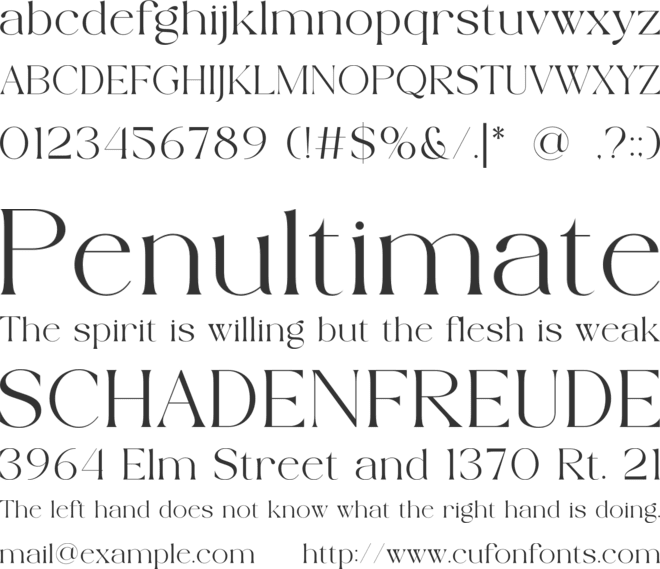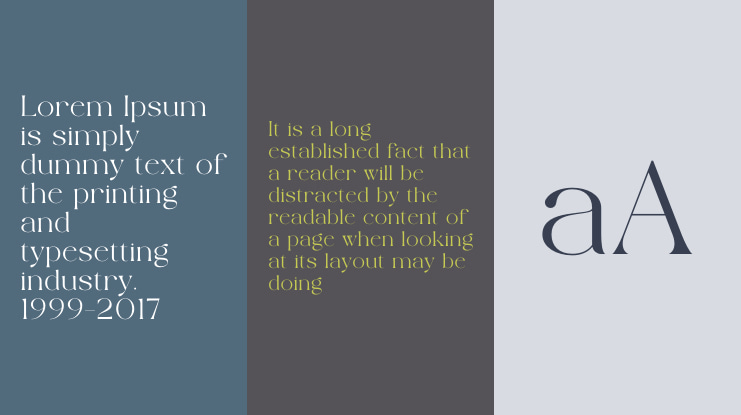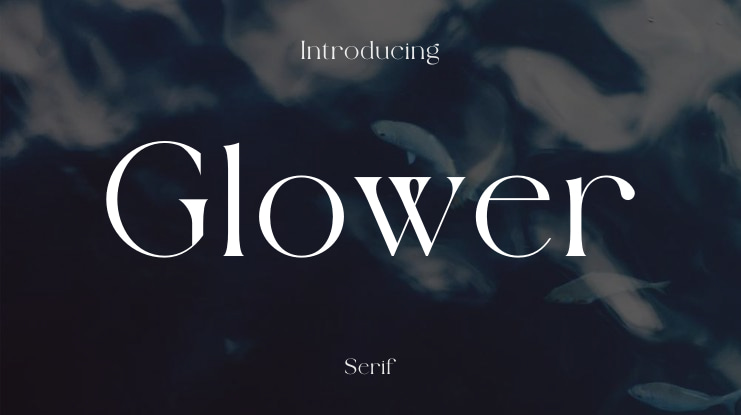
Glower Font
Glower – Elegant Serif Font features unique and classy capital letters A to Z and also comes with unique alternates making Glower a beautiful font that can be customized for various projects and jobs you want.
Glower is perfect for: logos, brands, wedding invitations, business cards, greeting cards, posters, magazines, social media, agenda prints, and websites.